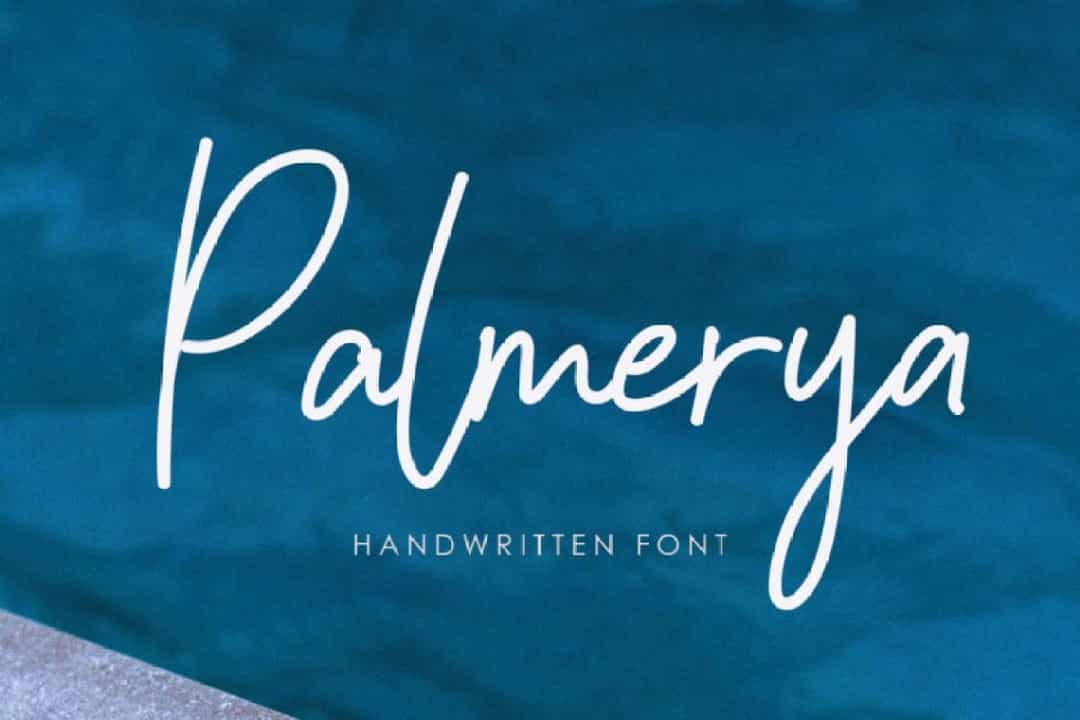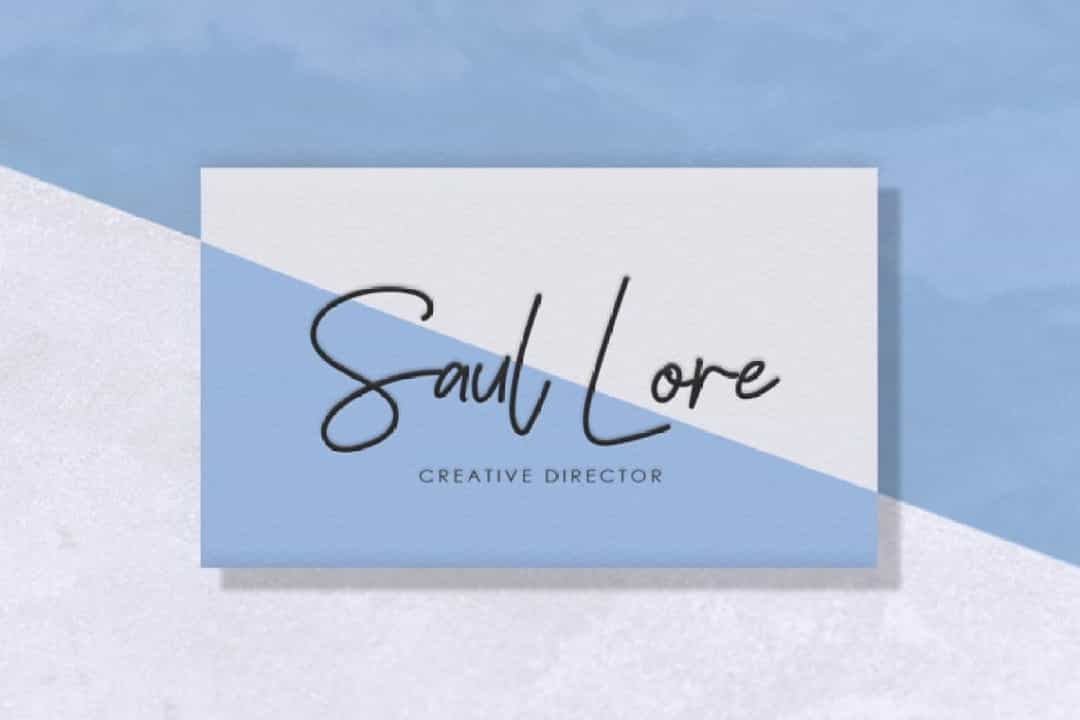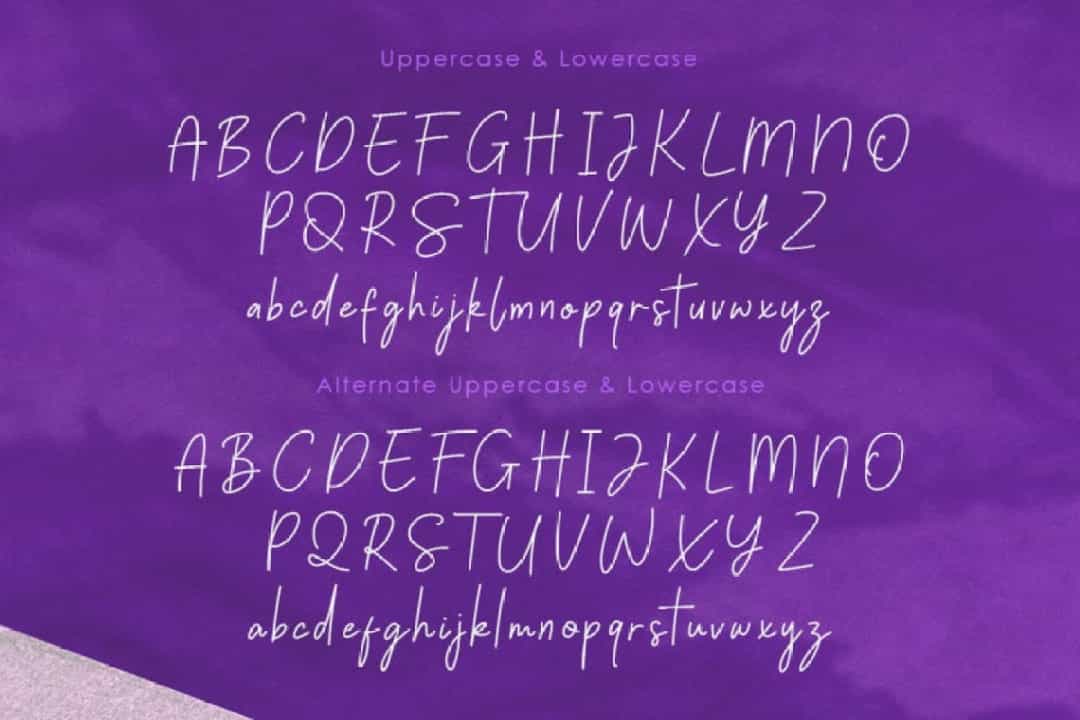
Palmeyra is very beautiful and at the same time very elegant. It is quite attractive and can be applied on wedding invitations, thank you cards, greeting cards, quotes, business cards or logos that need to have that hand written feel among others.